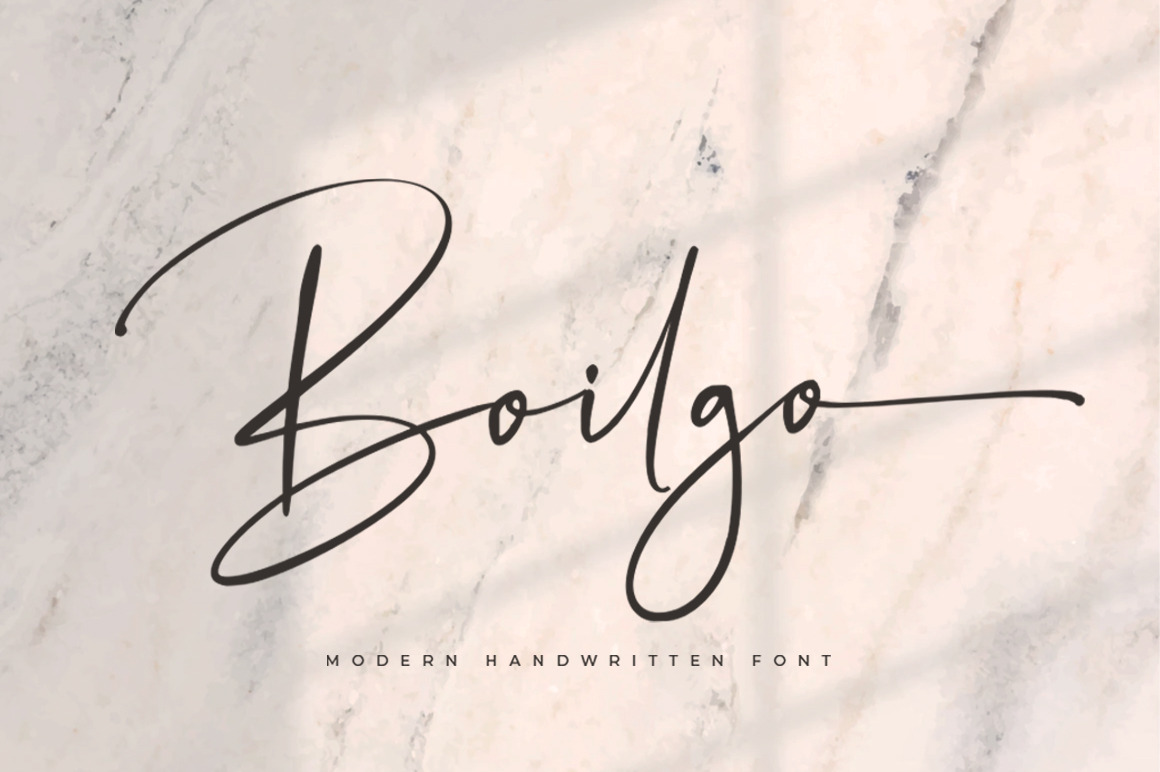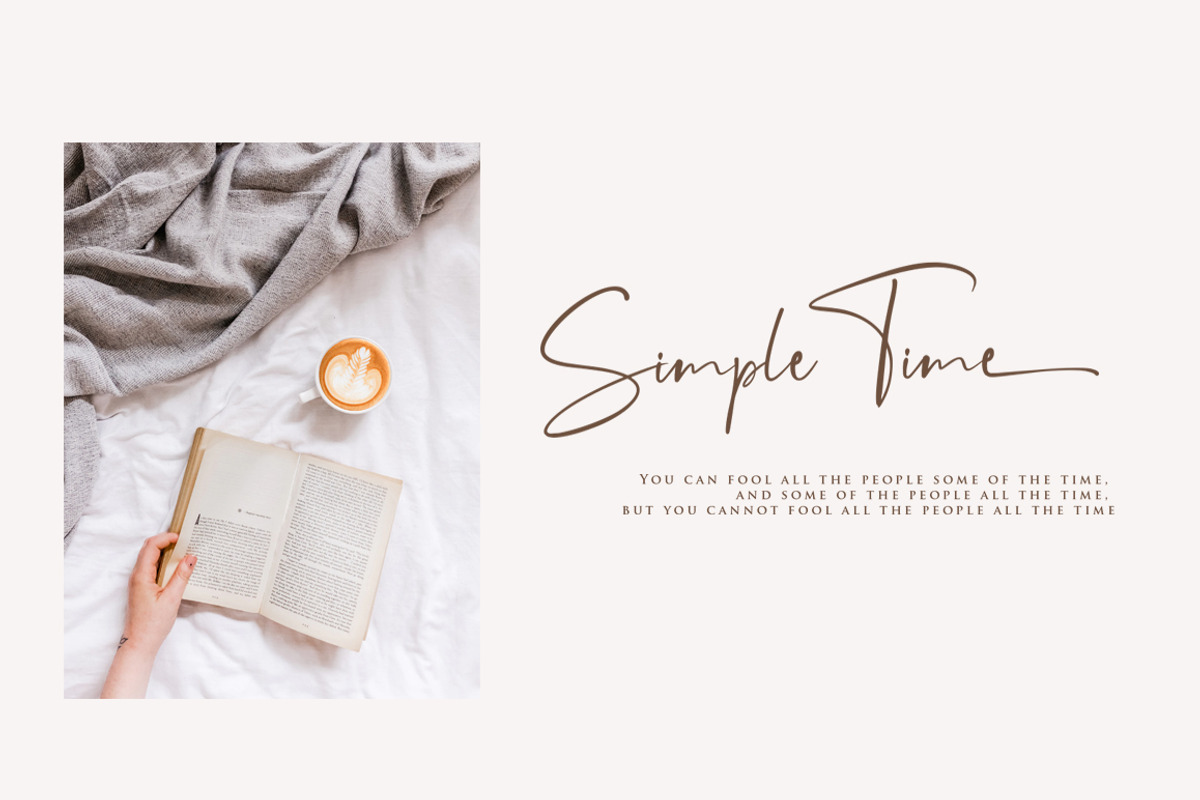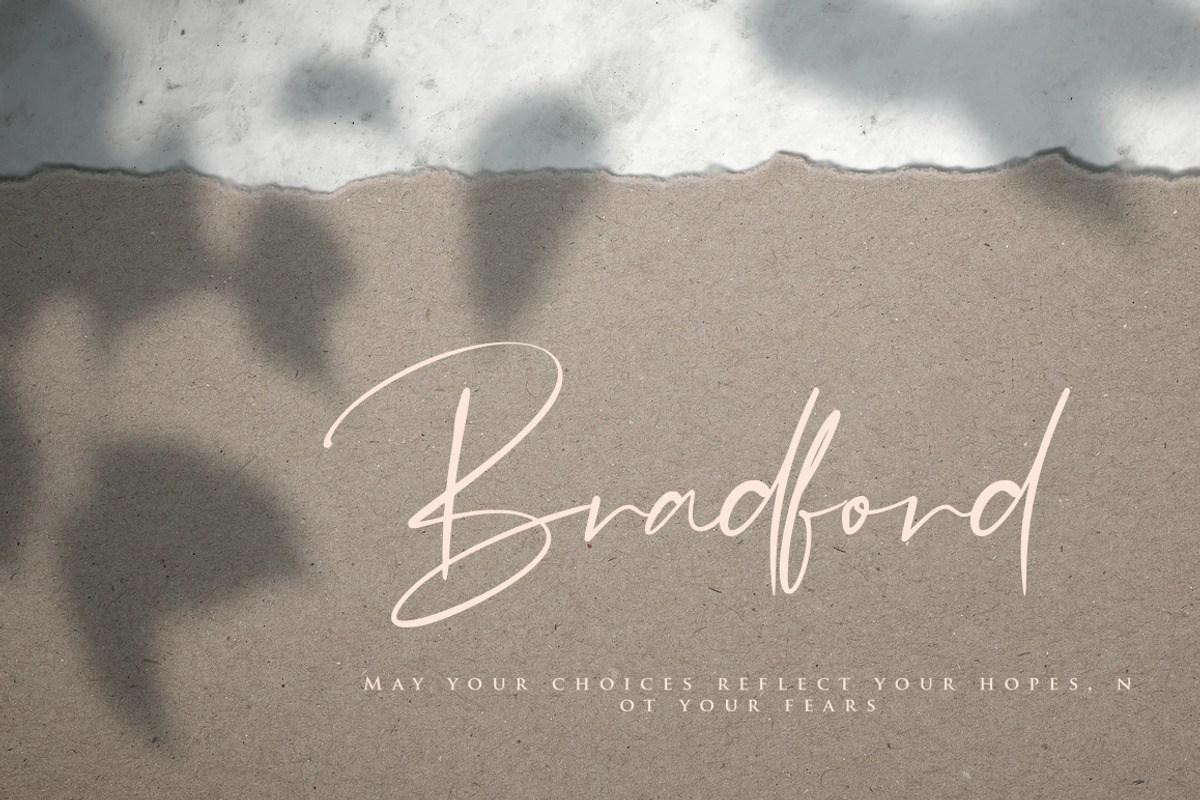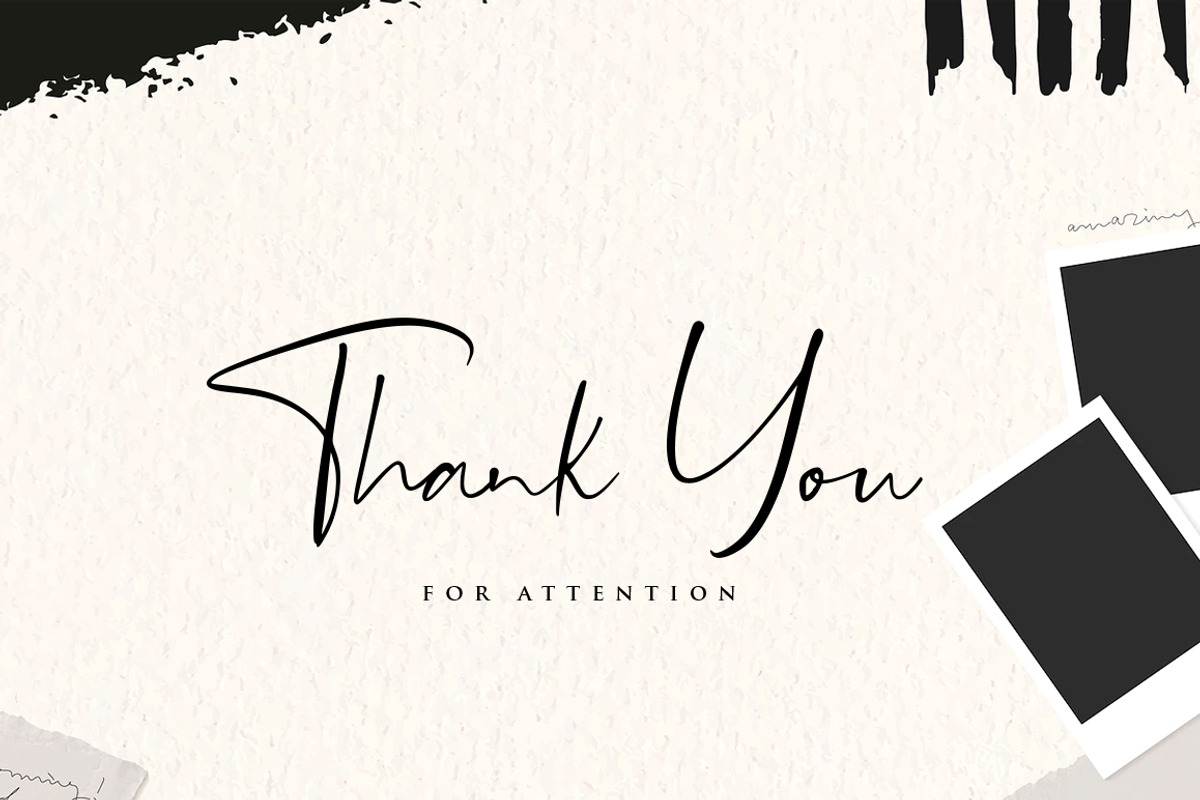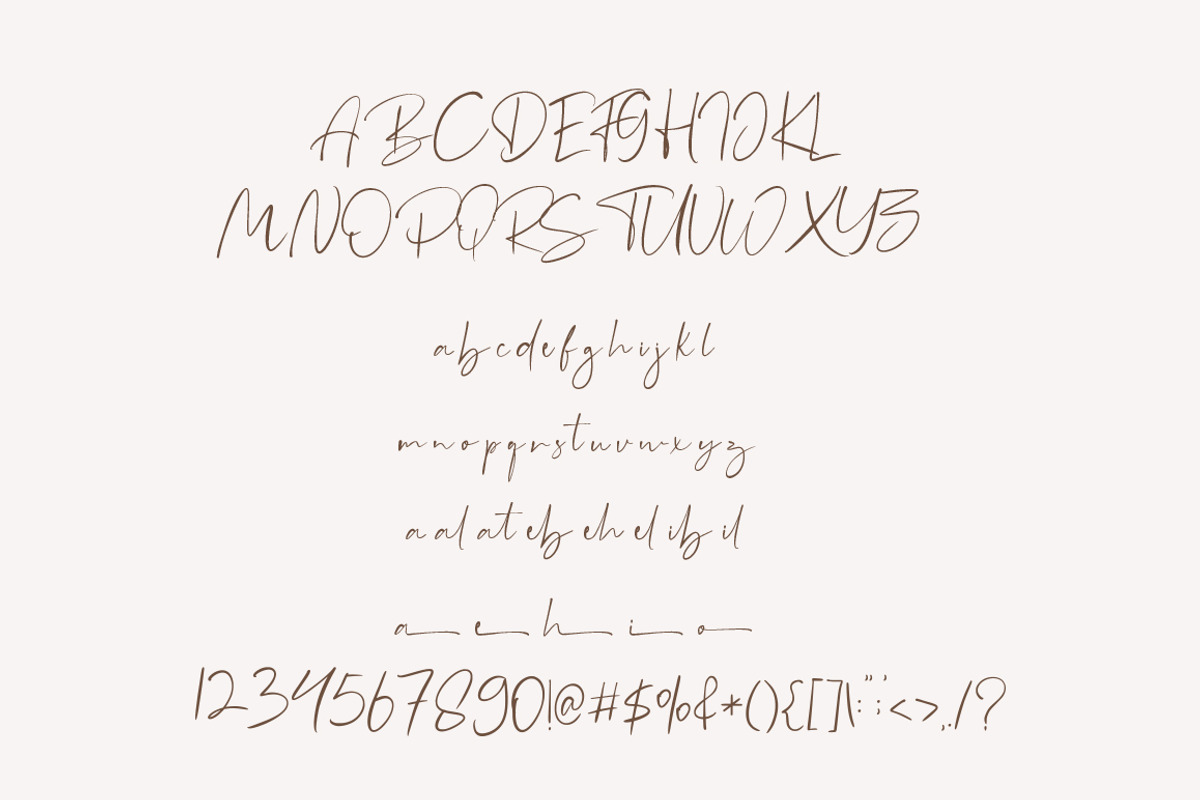
SALE ! Boilgo is minimalistic script and modern serif with beautiful ligature and alternate font.
It easily cooperating together For Magazine, Movies, or Book Titles. For Photography, Wedding Invitation, Restaurant Menu or T-shirt Design. For Flyers, Banner Ads, web and printing. From Food and Fashion to a Cosmetics product
Boilgo Font Features :
- Upper + Lowercase Letters
- Numbers + Punctuation
- Ligature Feature
- OpenType features
- 9 Premade Logo Design